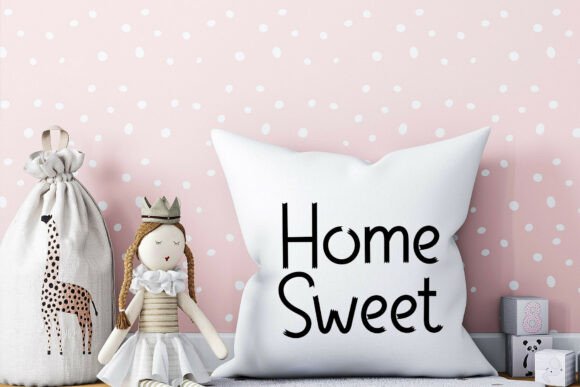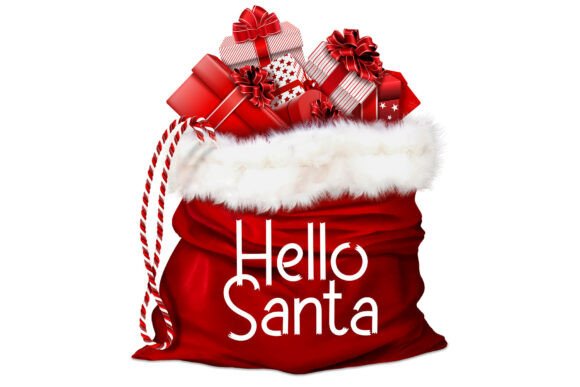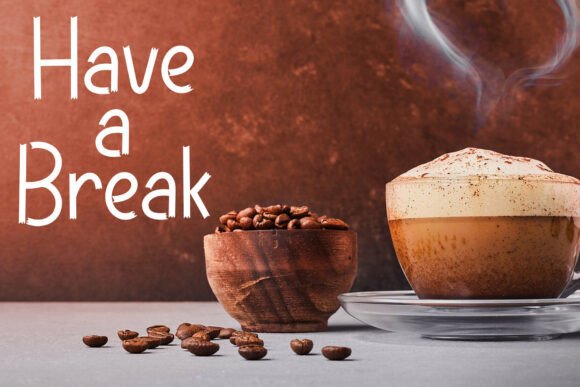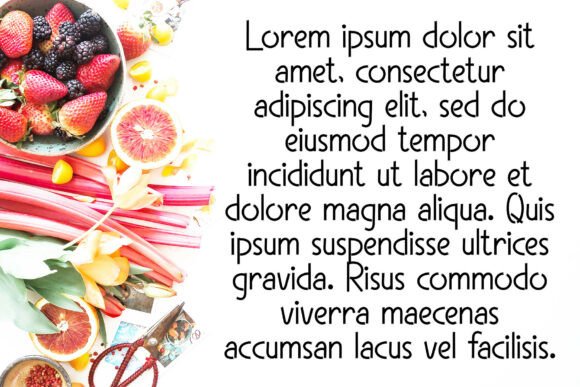
Discover the Elegance of Dodle Font: Elevate Your Designs with a Unique Touch
In the world of typography, fonts play a crucial role in conveying the tone and style of any design project. Whether you’re working on a wedding invitation, a birthday card, or a school assignment, the right font can make all the difference. This is where the Dodle Font comes into play—a unique and elegant typeface designed to add a professional touch to your creations. In this article, we’ll explore the features of the Dodle Font, its versatility, and why it’s an essential addition to your design toolkit.
The Unique Features of Dodle Font
Dodle Font is not just another typeface; it’s a carefully crafted design that stands out due to its distinctive characteristics. Here are some of its key features:
• Professional Hand Touch: Dodle Font is created with a professional hand touch, giving it a personal and sophisticated feel. This makes it perfect for projects where you want to convey elegance and class.
• Versatility: This font is incredibly versatile and can be used in a variety of projects, from wedding and birthday invitations to school assignments and other important events.
• Glyph Accessibility: One of the standout features of Dodle Font is that it is accessible with all glyphs without any additional applications. This means you can easily incorporate it into your designs without any hassle.
Applications of Dodle Font
The versatility of Dodle Font makes it suitable for a wide range of applications. Here are some of the ways you can use this elegant font:
Wedding and Party Invitations
Wedding invitations set the tone for the big day, and using a font like Dodle can add a touch of sophistication and romance. Its elegant design makes it perfect for:
• Wedding invitations
• Anniversary cards
• Birthday party invites
• Baby shower invitations
School Assignments and Projects
For students and educators, Dodle Font can be a valuable asset for creating visually appealing school assignments and projects. Its professional look makes it suitable for:
• Cover pages for reports and projects
• Presentations
• Posters
• Educational materials
Creative Projects and Crafts
Crafters and DIY enthusiasts will also find Dodle Font to be a great addition to their toolkit. Use it to add a personal touch to:
• Handmade cards
• DIY crafts
• Personalized gifts
• Blog posts and social media graphics
Why Choose Dodle Font?
With so many fonts available, why should you choose Dodle Font for your projects? Here are a few compelling reasons:
• Elegance: Dodle Font adds an elegant touch to any design, making it perfect for projects where you want to impress.
• Readability: Its clear and professional design ensures that your text is easy to read, which is crucial for conveying your message effectively.
• Versatility: Whether you’re working on a formal or informal project, Dodle Font adapts seamlessly to different contexts.
• Convenience: With all glyphs accessible without additional applications, you can focus on designing rather than troubleshooting.
How to Use Dodle Font Effectively
To make the most of Dodle Font, consider the following tips:
• Pair it with Other Fonts: Experiment with font combinations to create visually appealing designs. Dodle Font works well with both serif and sans-serif fonts.
• Adjust Font Sizes: Use different font sizes to create a hierarchy of information, making your design more engaging and easier to navigate.
• Play with Colors: While Dodle Font is elegant in its standard form, don’t be afraid to experiment with different colors to match your project’s theme.
Font Name Dodle Font
Author GiaLetter
Dodle Font is more than just a typeface; it’s a design tool that can elevate your projects to new heights. Its unique blend of elegance, versatility, and convenience makes it an essential asset for designers, crafters, and anyone looking to add a professional touch to their creations. Whether you’re working on a wedding invitation, a school project, or a creative craft, Dodle Font is sure to make your designs stand out. So, why wait? Download Dodle Font today and discover the difference it can make in your designs.